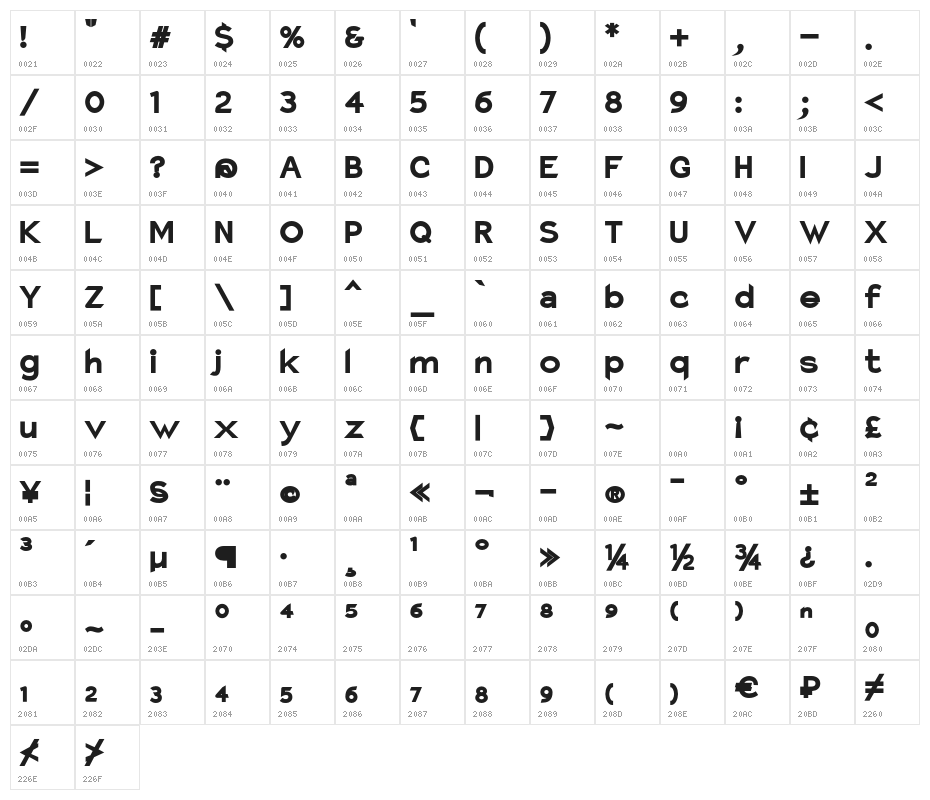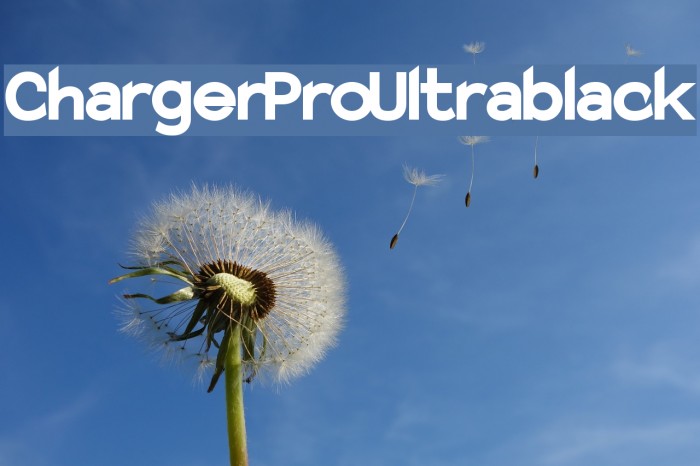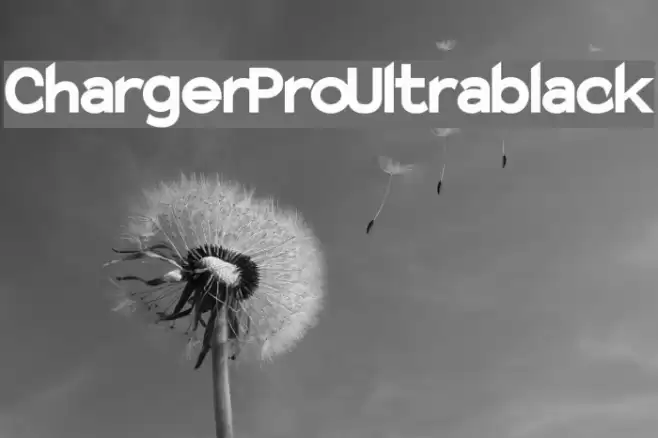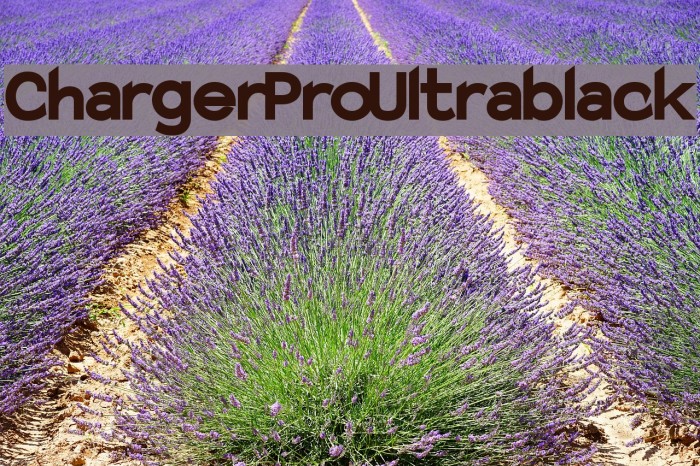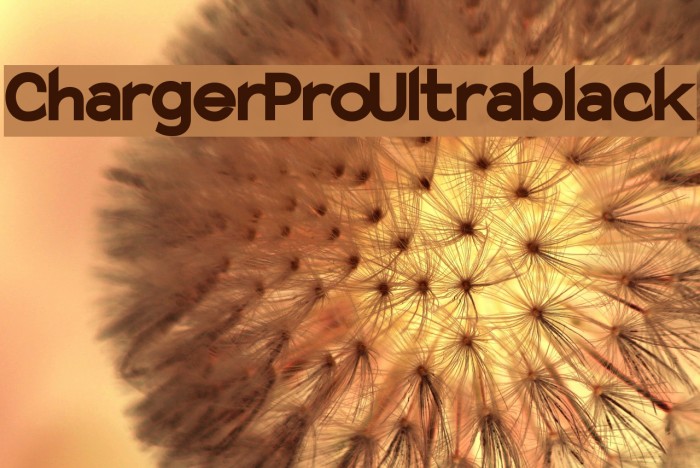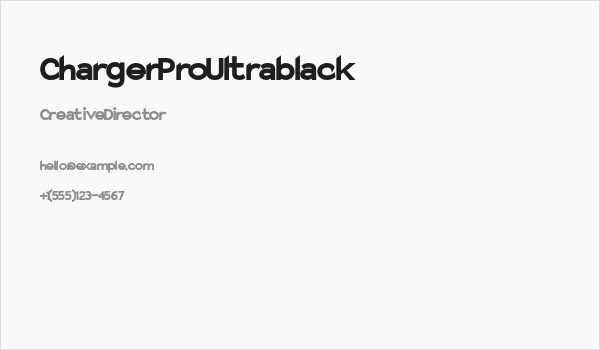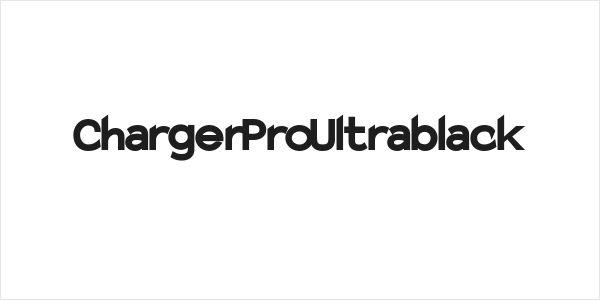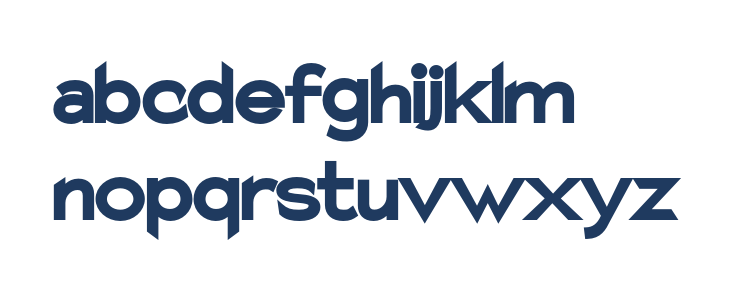
Charger Pro Ultrablack Font
Charger Pro Ultrablack Description
This font is a bold and modern sans-serif typeface with a strong presence. Its characters are robust and geometric, featuring clean lines and a uniform stroke width that conveys a sense of stability and confidence. The uppercase letters are particularly striking, with a commanding appearance that makes them ideal for headlines and titles. The lowercase letters maintain the same boldness, ensuring consistency across different text sizes. The numerals are clear and legible, making them suitable for a variety of applications. Special characters are included, maintaining the same bold style, which adds versatility to the font's use. Overall, this typeface is designed to make a strong visual impact, perfect for projects that require a contemporary and assertive look.